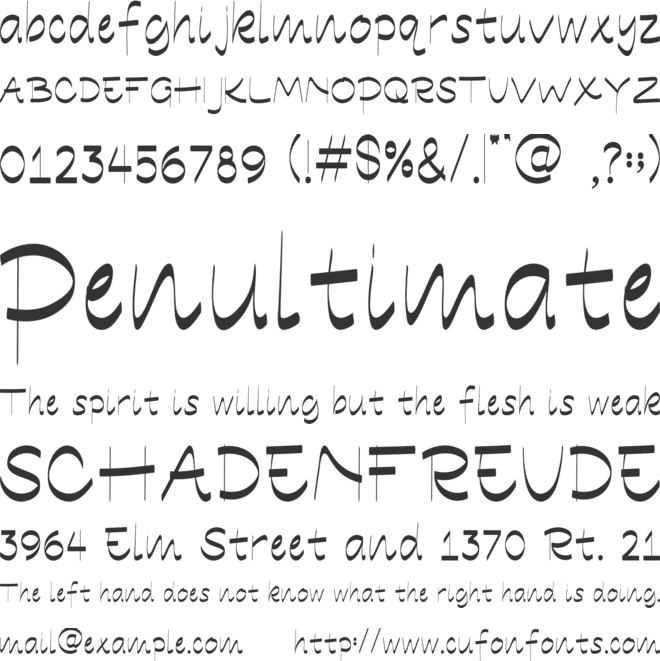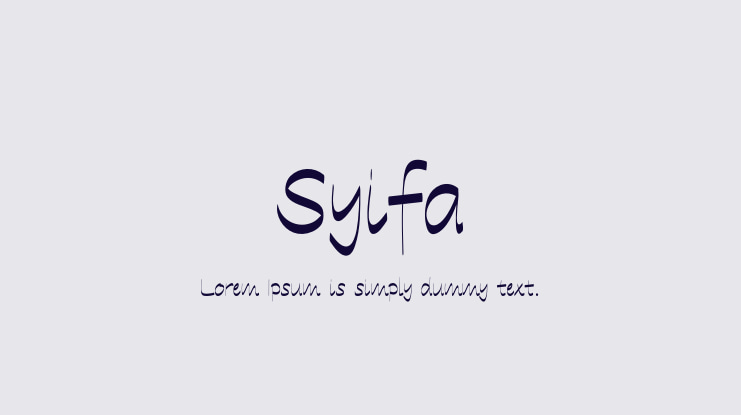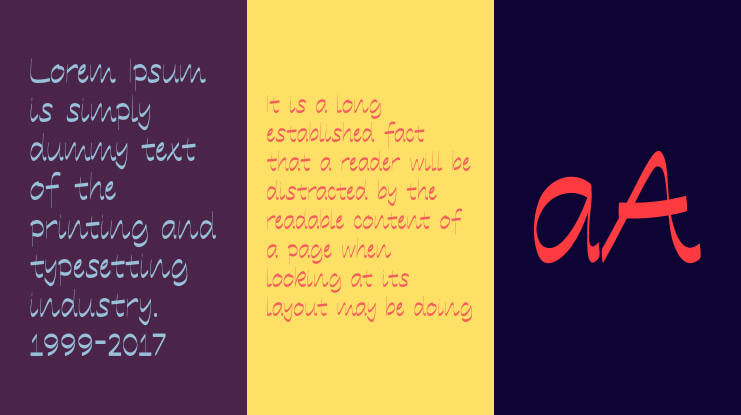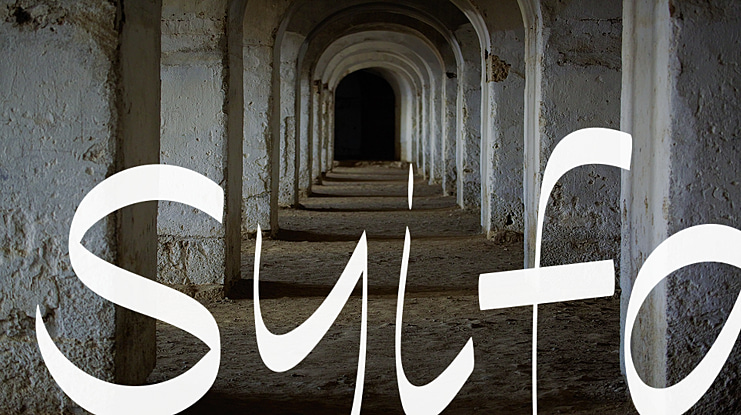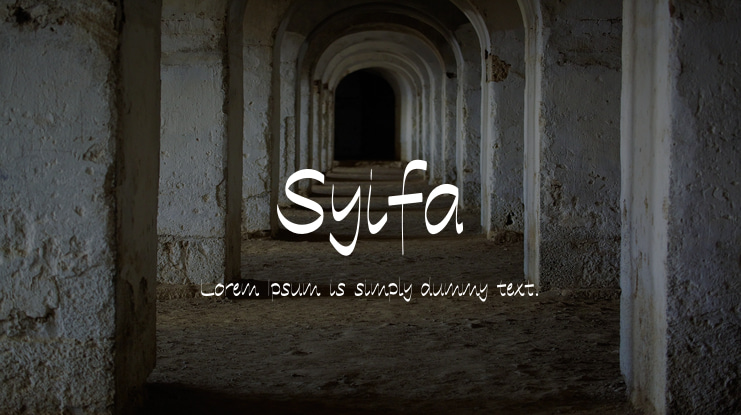
Syifa Font
Syifa is a simple, friendly and natural handwritten font. It looks beautiful on a variety of designs requiring a personalized style, such as wedding invitations, thank you cards, weddings, greeting cards, logos and so on.
Muhammad Nashrul Aziz